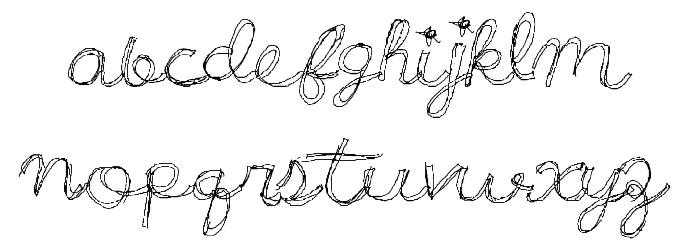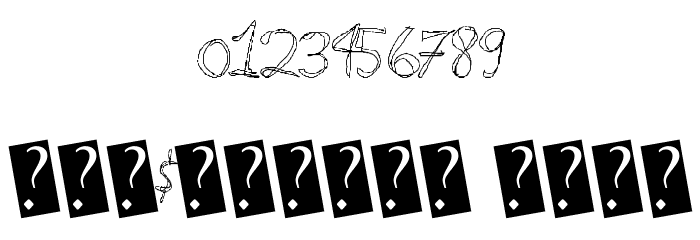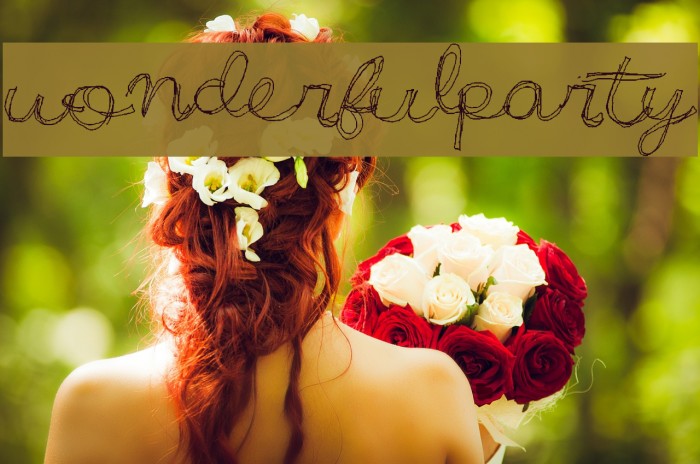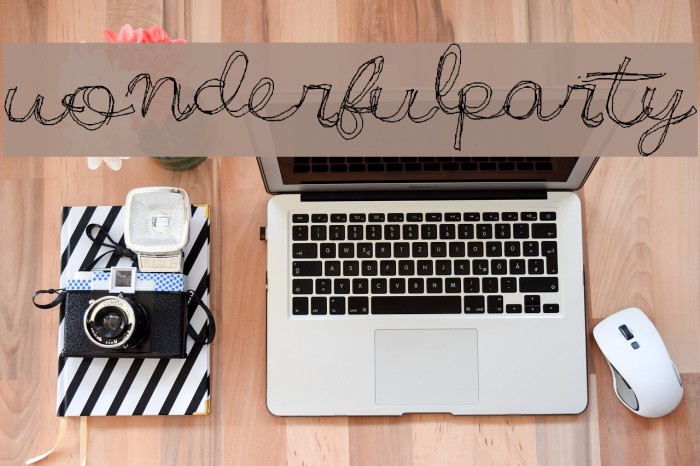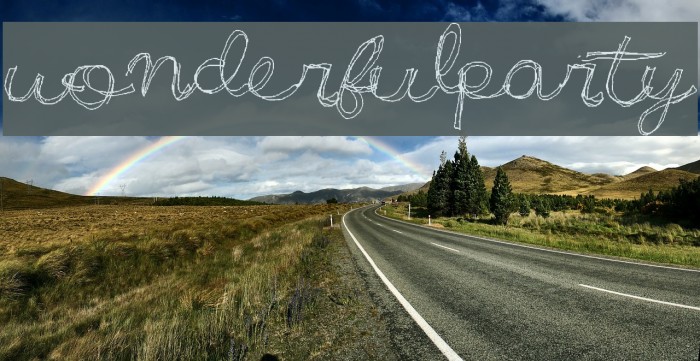
WonderfulParty Font
This font features a playful and whimsical handwritten style, characterized by its flowing script and decorative elements. The letters are adorned with small stars, adding a touch of fun and creativity. The strokes are consistent in width, giving it a uniform appearance, while the curves and loops of the letters enhance its lively and dynamic feel. The font maintains a casual elegance, making it suitable for projects that require a personal and informal touch. The numbers and special characters follow the same playful design, ensuring a cohesive look across all text elements.
A playful, whimsical handwritten font with decorative star accents.
- Proposed Projects: Ideal for party invitations, greeting cards, children's book covers, and playful branding.
- Use Case: Headlines, Invitations, Greeting Cards